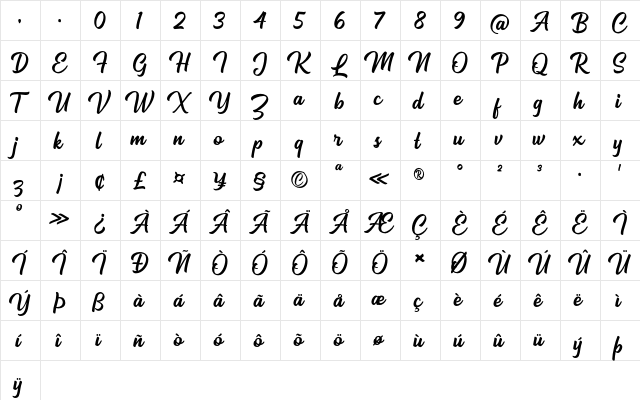
Mackless Script ScriptDemo
Design Context for Mackless Script Typeface
Mackless Script flows with the natural rhythm of handwritten lettering, making it ideal for designs that call for warmth and personal expression.
Font Pairing: Combine Mackless Script with a simple geometric sans for maximum contrast — the tension between flowing curves and clean structure is a classic typographic pairing.
Pro Tip: Pair Mackless Script with a clean sans-serif for supporting text. The contrast between fluid script and geometric structure creates an elegant typographic hierarchy.